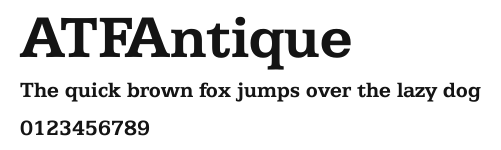
• Font Name: ATFAntique
• Full Font Name: ATFAntique Bold
• Designer: Barnhardth Bros. & Spindler
• Manufacturer: SoftMaker/ATF
• Description: ATF Antique was first released by the Barnhardth Bros. & Spindler type foundry in 1842. It was designed for sign cutting, and saw much use throughout the latter 19th century. Its popularity led to its re-introduction by ATF in 1905 under the name Antique 1. It is the precursor to the typefaces Bookman and Rockwell. Consider using ATF Antique in headlines, callouts and captions.